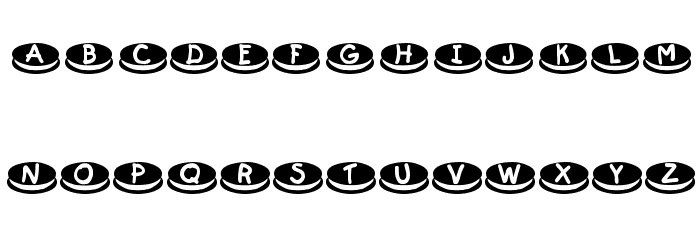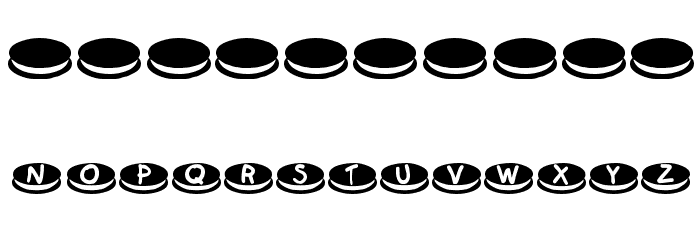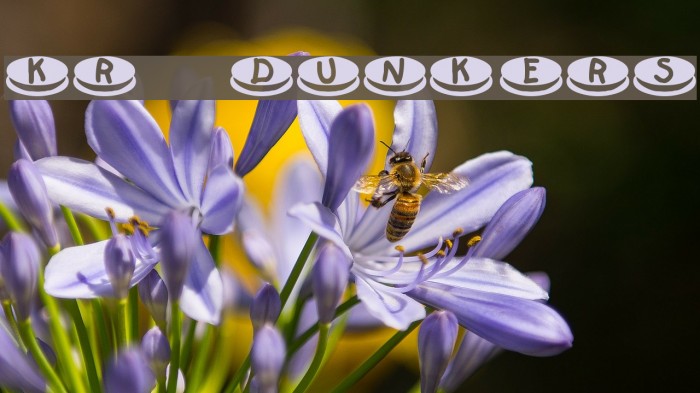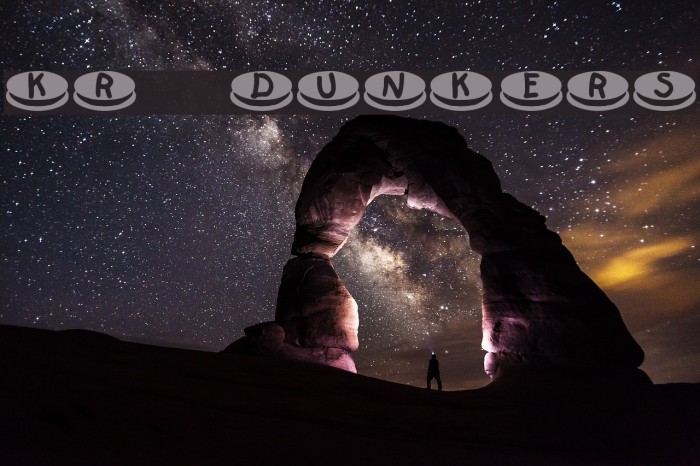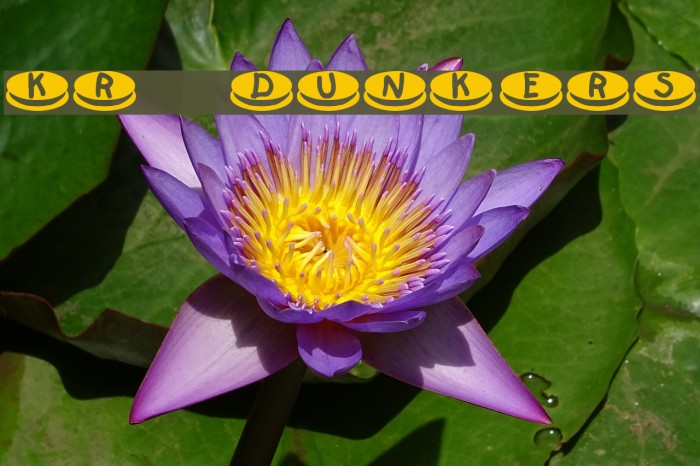
KR Dunkers Font
This playful and bold font features characters designed to resemble sandwich cookies, with each letter appearing as a white filling between two dark, rounded cookies. The font is highly decorative, with a three-dimensional effect that gives the impression of depth and texture. The letters are uppercase and evenly spaced, maintaining a consistent size and shape throughout. The whimsical design makes it ideal for projects that require a fun and engaging visual element. The font's unique style is perfect for themes related to food, desserts, or playful branding.
A playful, cookie-themed decorative font with a bold, three-dimensional style.
- Proposed Projects: Ideal for children's book covers, playful branding, dessert shop logos, and themed party invitations.
- Use Case: Logos, Headlines, Themed Designs